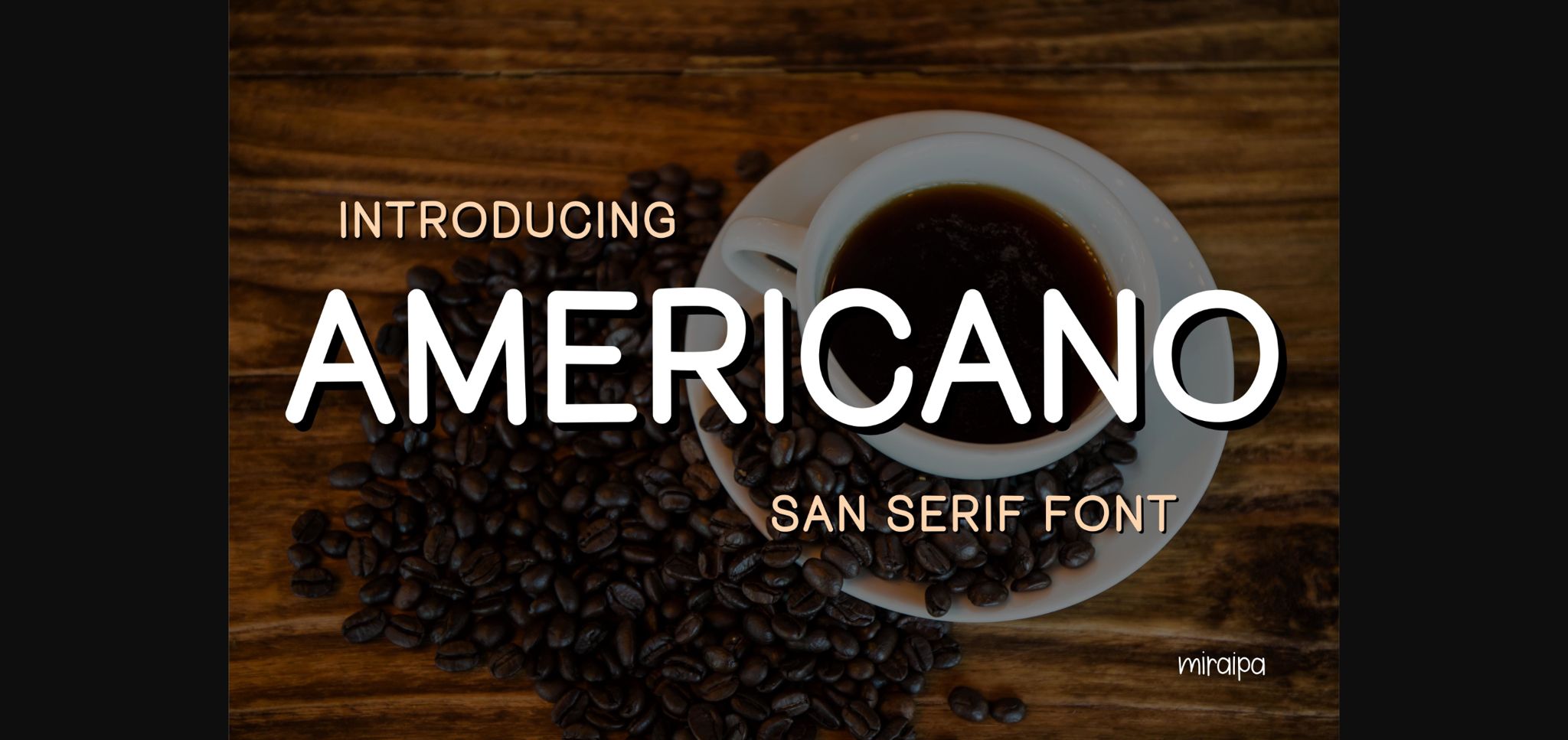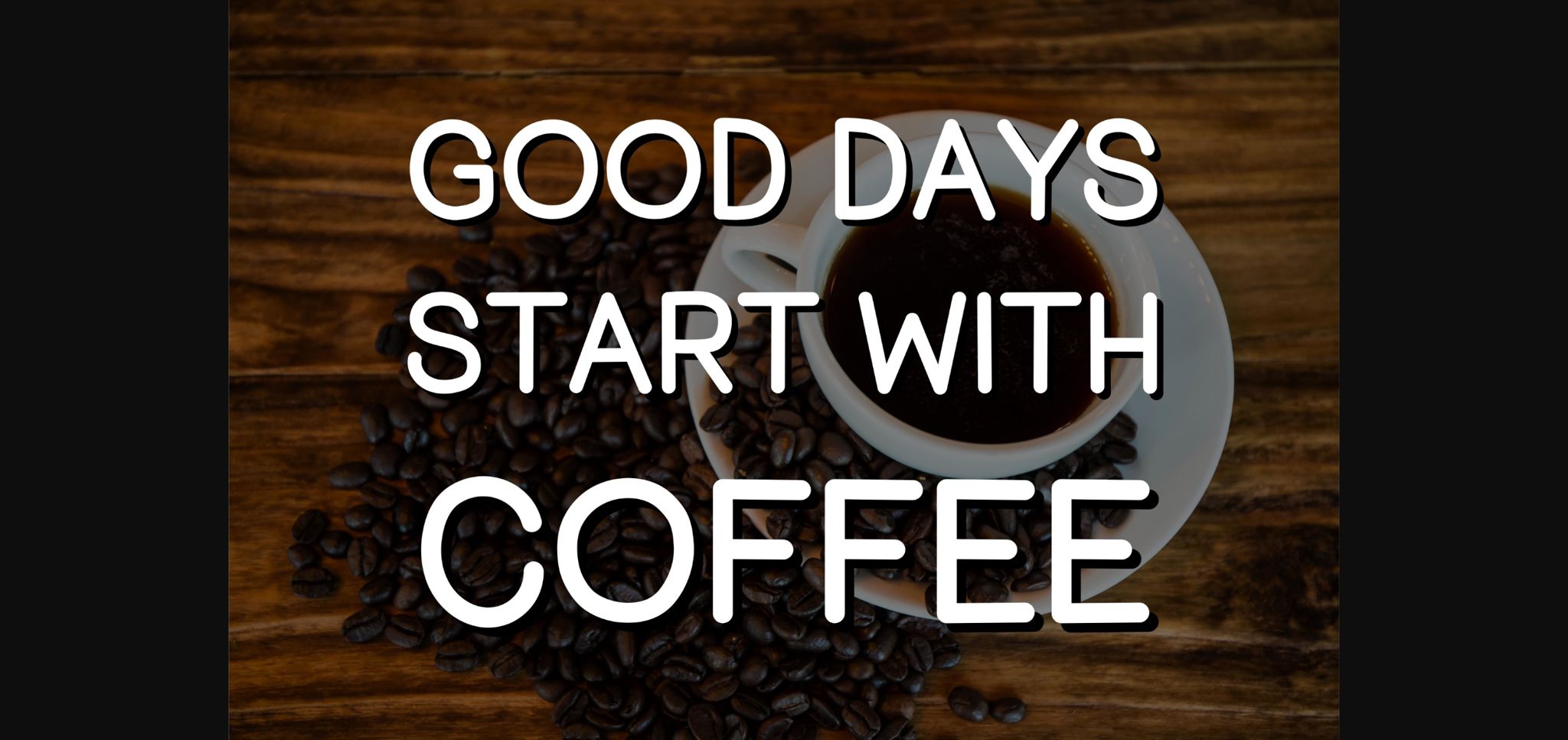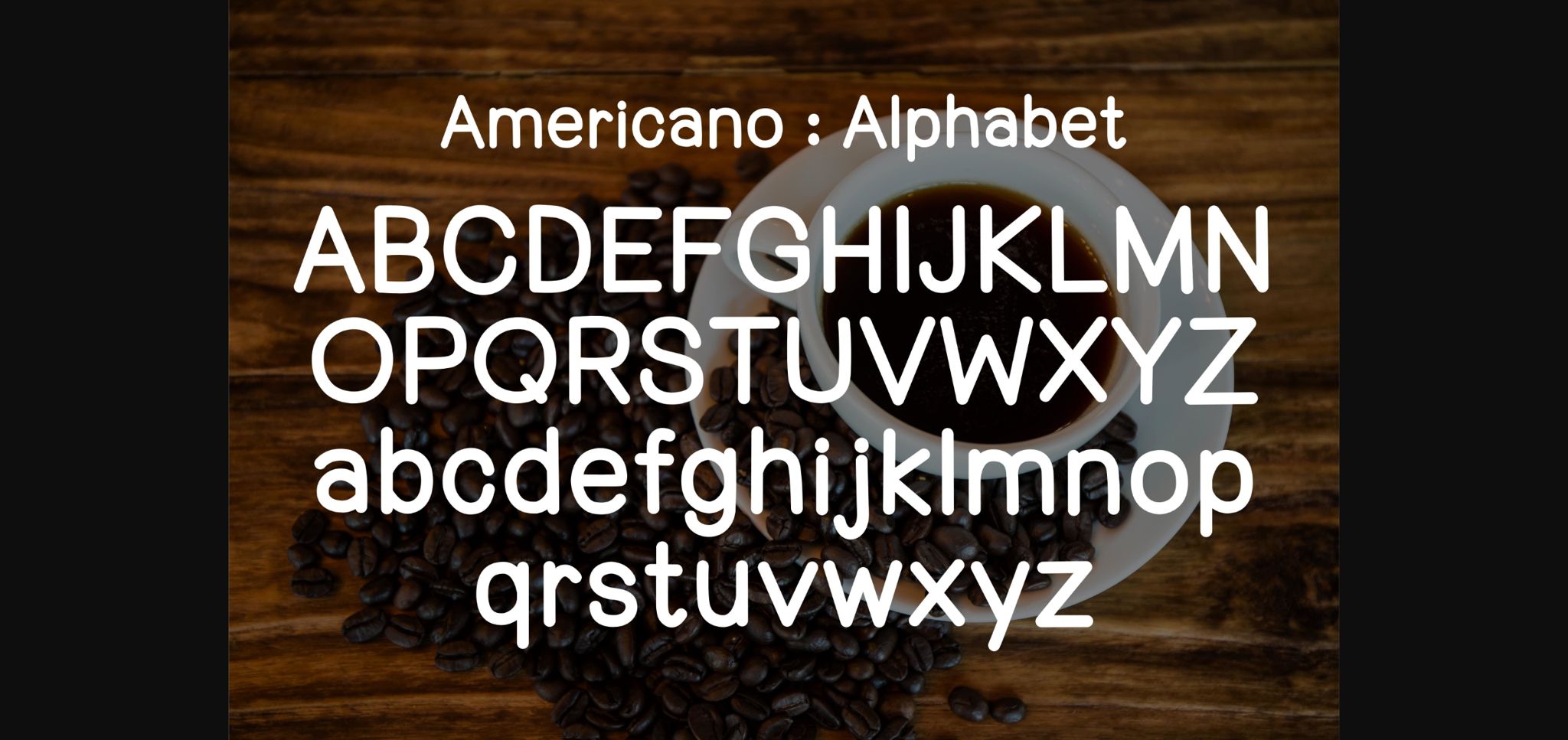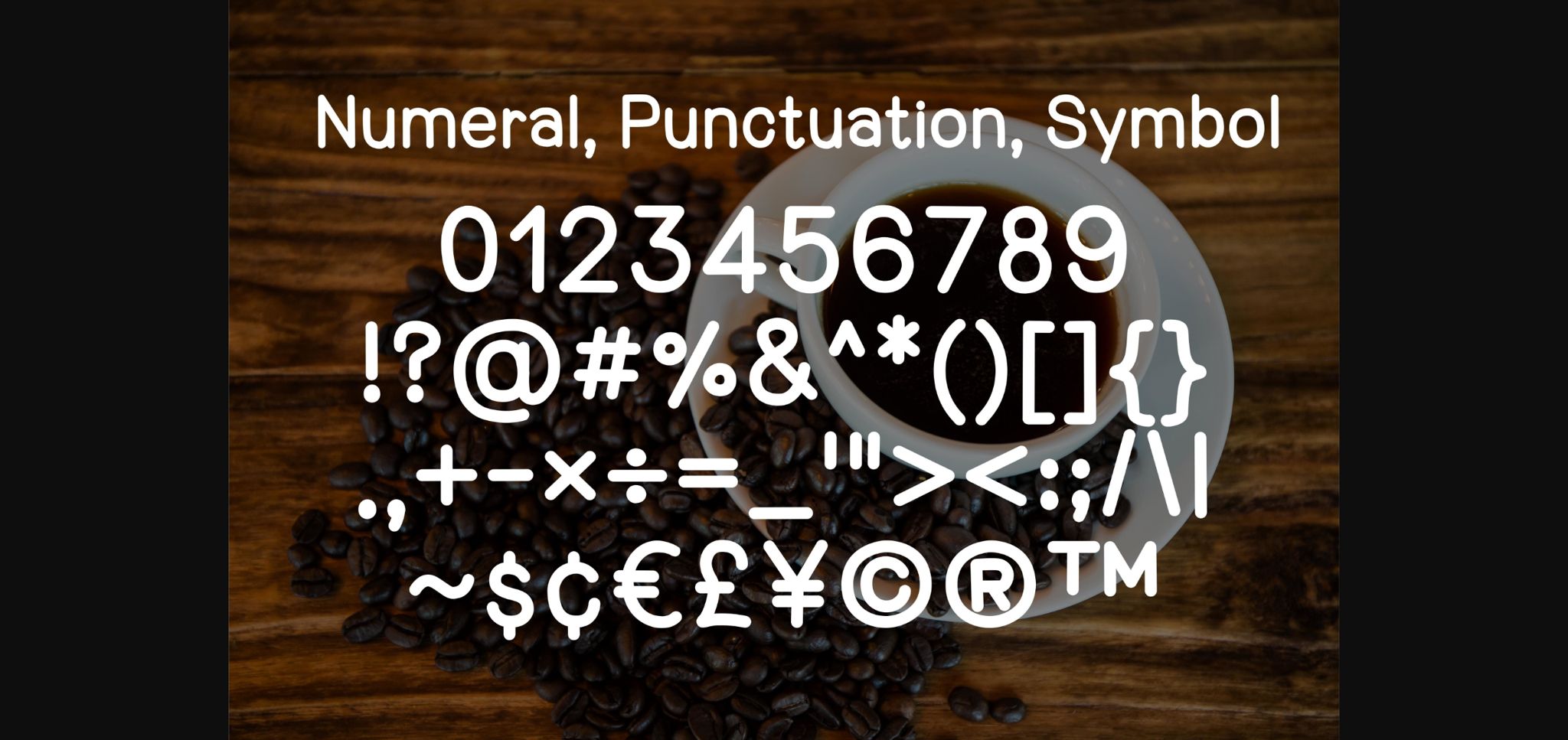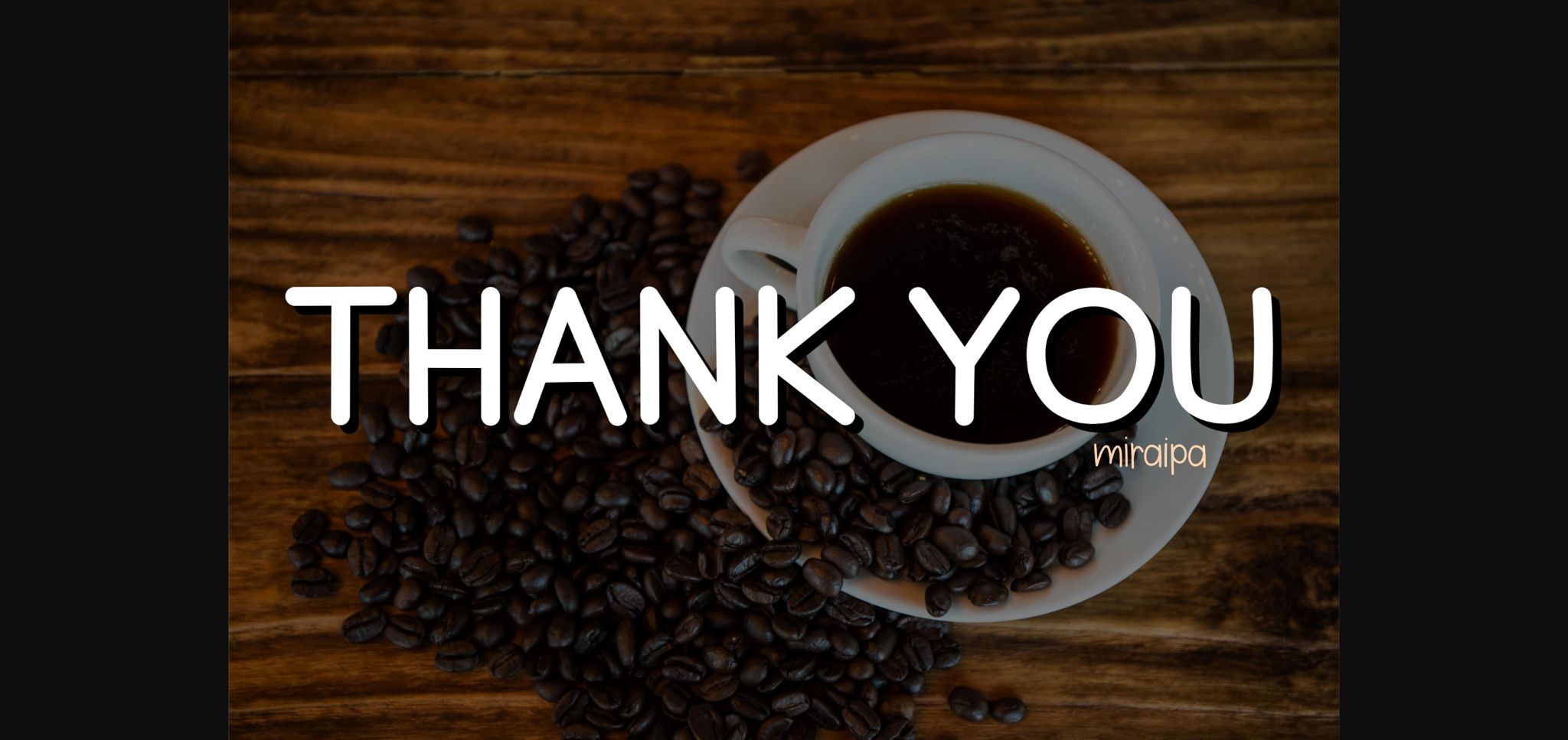
About Americano Font
Americano is designed in a friendly and classic Sans serif style. It would be awesome for your diary planner and journal, but also for back-to-school projects, weddings, party decorations, invitations, festivals, posters, blogs, clothing, child-related designs, greeting cards, social media posts, or anything that needs a friendly touch. Add it now to your fonts library, and it will bring any of your DIY projects to life.